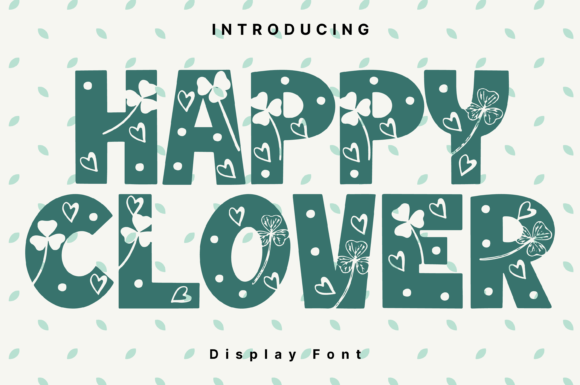
Introducing Happy Clover Font - the best font for happy holidays! Created by AchiArt, this whimsical and clean handwritten font is the perfect addition to your creative arsenal. Whether you're designing holiday cards, invitations, or even social media graphics, Happy Clover is sure to make your projects stand out.
With its unique style, Happy Clover can be used in an incredibly large set of projects, giving you the versatility you need to make your designs truly unique. The font's clean lines and playful curves make it perfect for both professional and personal projects alike.
But Happy Clover is more than just a font - it's a way to elevate your designs to the next level. By using this font, you can add a touch of whimsy and creativity to any project, making it truly unforgettable.